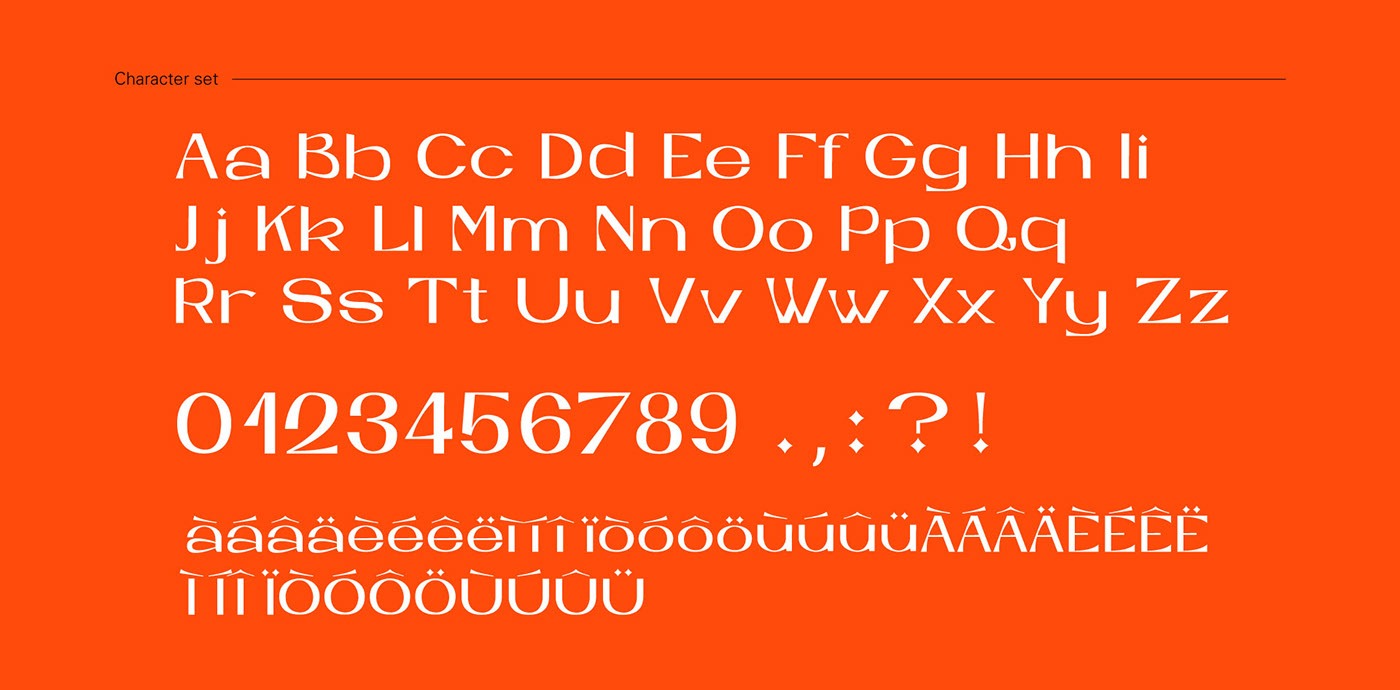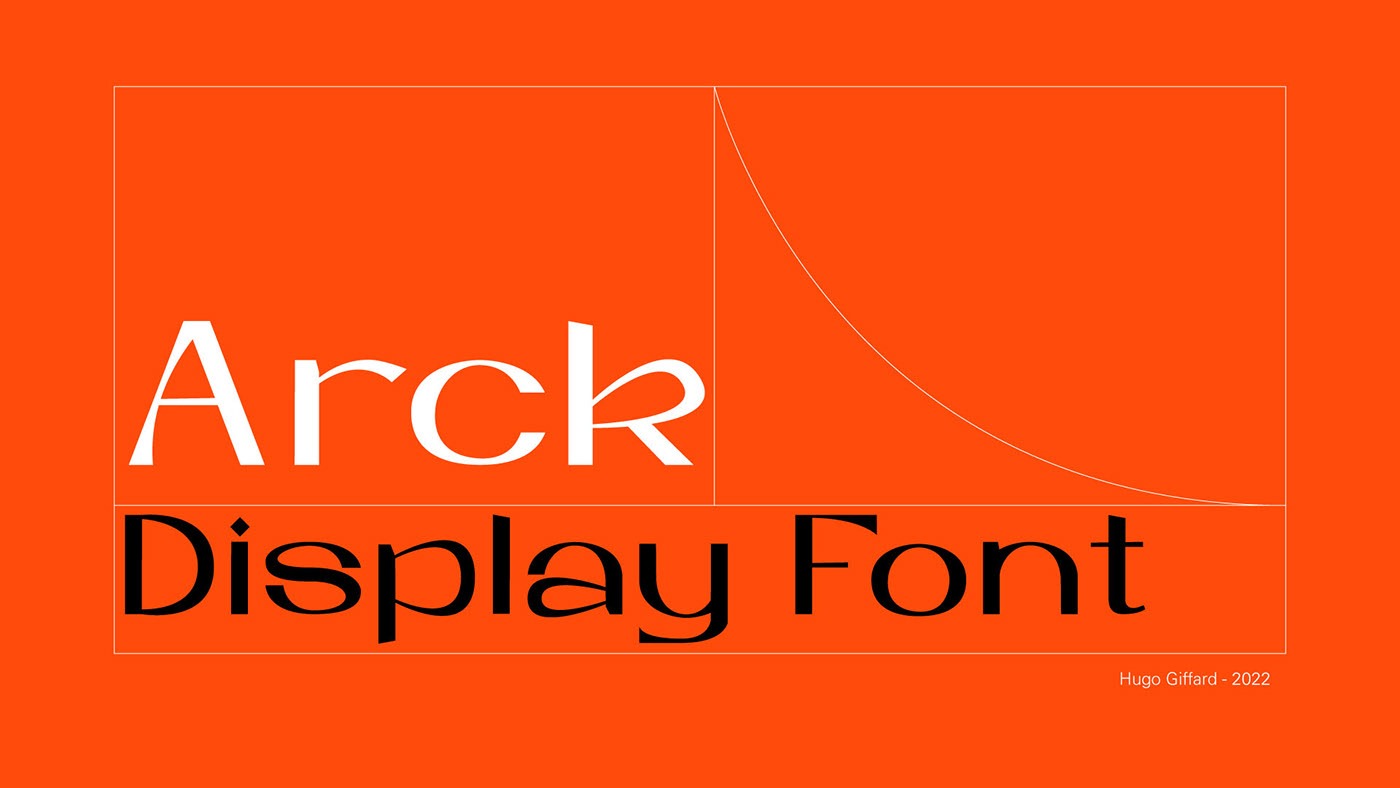
Arck Display Font
This is unique classic font features thick and thin contrast details for contemporary nuances. It can be used to create almost all types of design projects like print materials. Just use your imagination and your project will become more alive and look great than ever with this typeface.